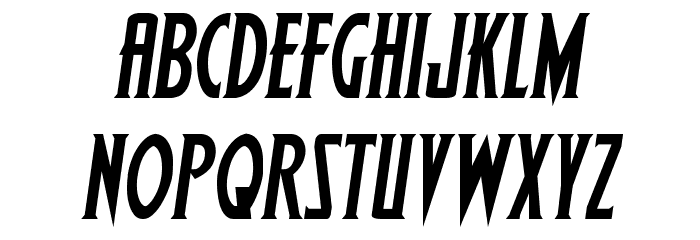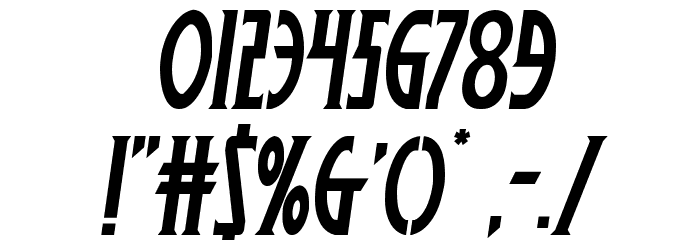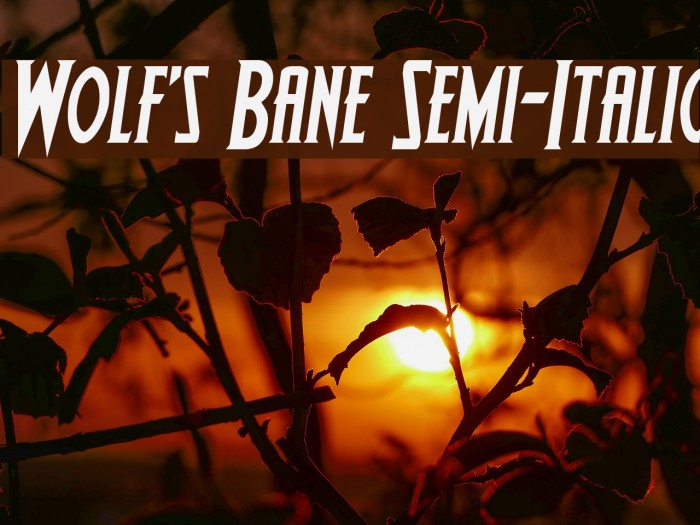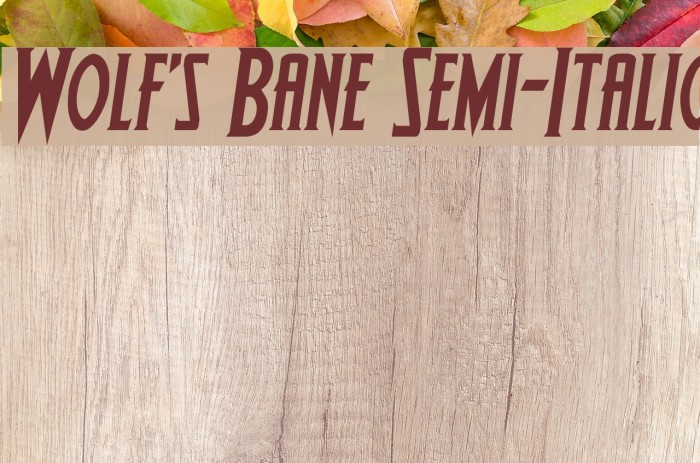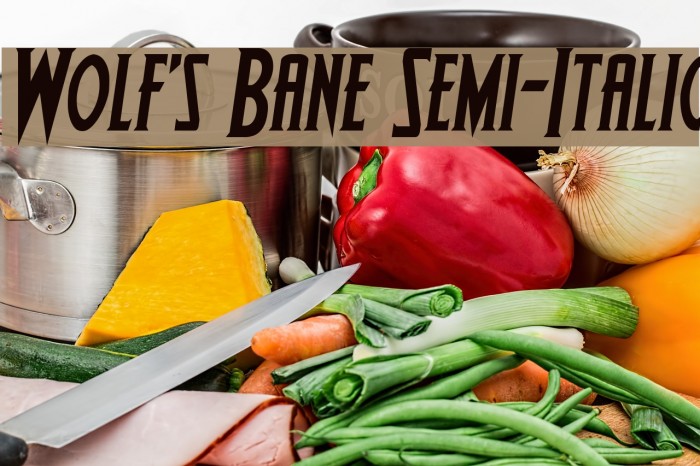
Wolf's Bane Semi-Italic Font
This font features a dynamic and bold design with a semi-italic slant, giving it a sense of movement and energy. The characters are sharply defined with angular edges and a slightly condensed form, enhancing its striking appearance. The uppercase letters are particularly prominent, with a strong presence that commands attention. The numerals and special characters maintain the same bold style, ensuring consistency across all text elements. This font is ideal for projects that require a dramatic and impactful visual statement.
A bold, semi-italic font with angular edges and a dynamic style.
- Proposed Projects: Perfect for posters, headlines, branding, and any design needing a bold, impactful typeface.
- Character Spacing: Tight